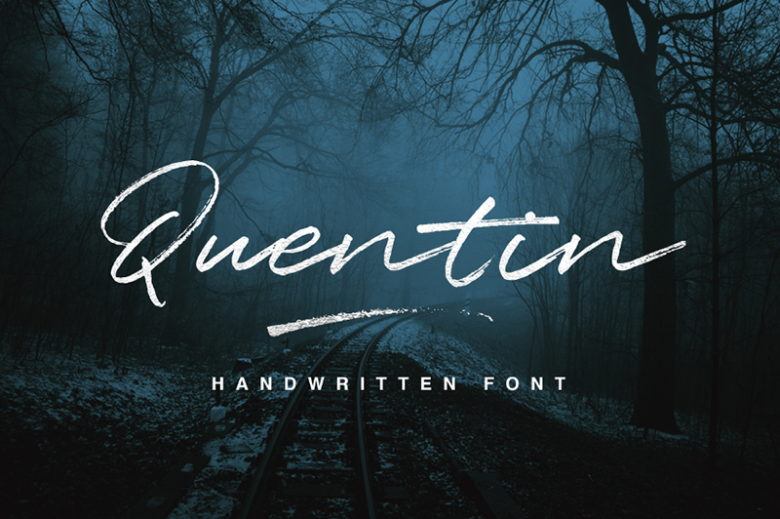
Quentin Font
Get Studio gladly present you the exquisite Quentin Script Free Typeface! Quentin is a font that is coming from a handwriting. This typeface turns out to look authentic with its rough texture from dry strokes. Yet this typeface appears with natural curves and has its own personal taste. Quentin is going to be perfect for branding, since it has the signature touch on it, also great for product packaging, and the popular social media ads.